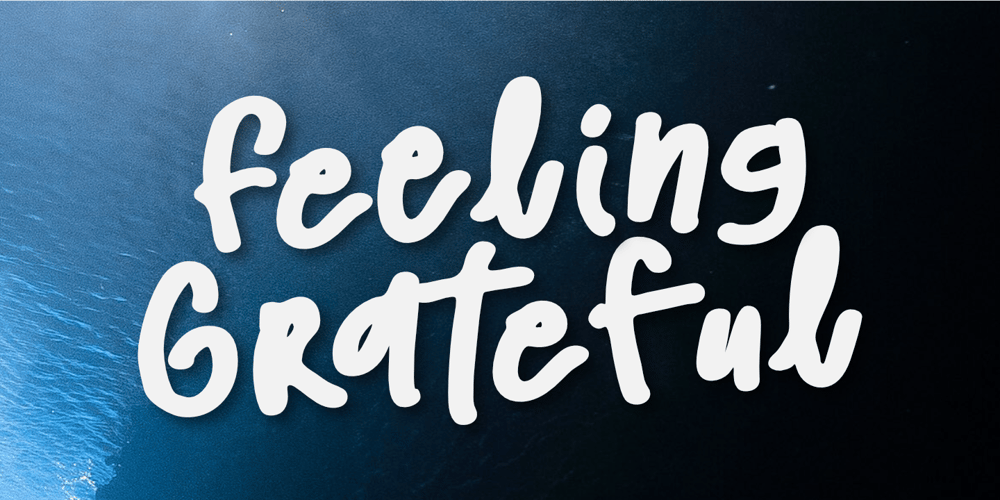
Feeling Grateful Font Family was designed by Nurul Hidayani and published by Olivetype. Feeling Grateful contains 1 styles and family package options. Bring joy to your designs with Feeling Grateful! This cheerful font offers a combination of adorable style and fun. Its bouncy and bold letters are the perfect addition to your logos, headlines, and other projects. Feeling Grateful is sure to make any design stand out with its positive vibes, so grab this font today and start adding some fun to your designs!